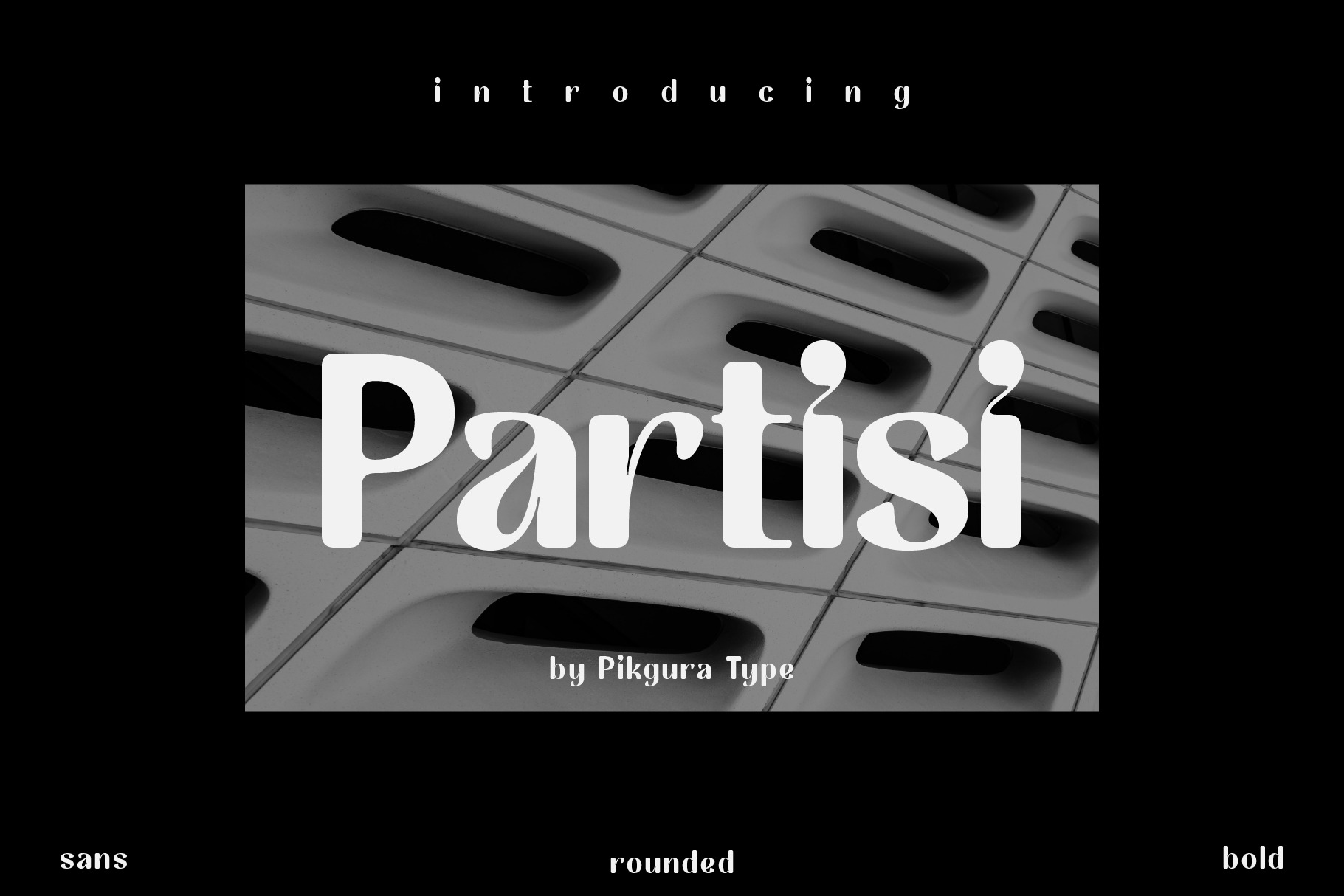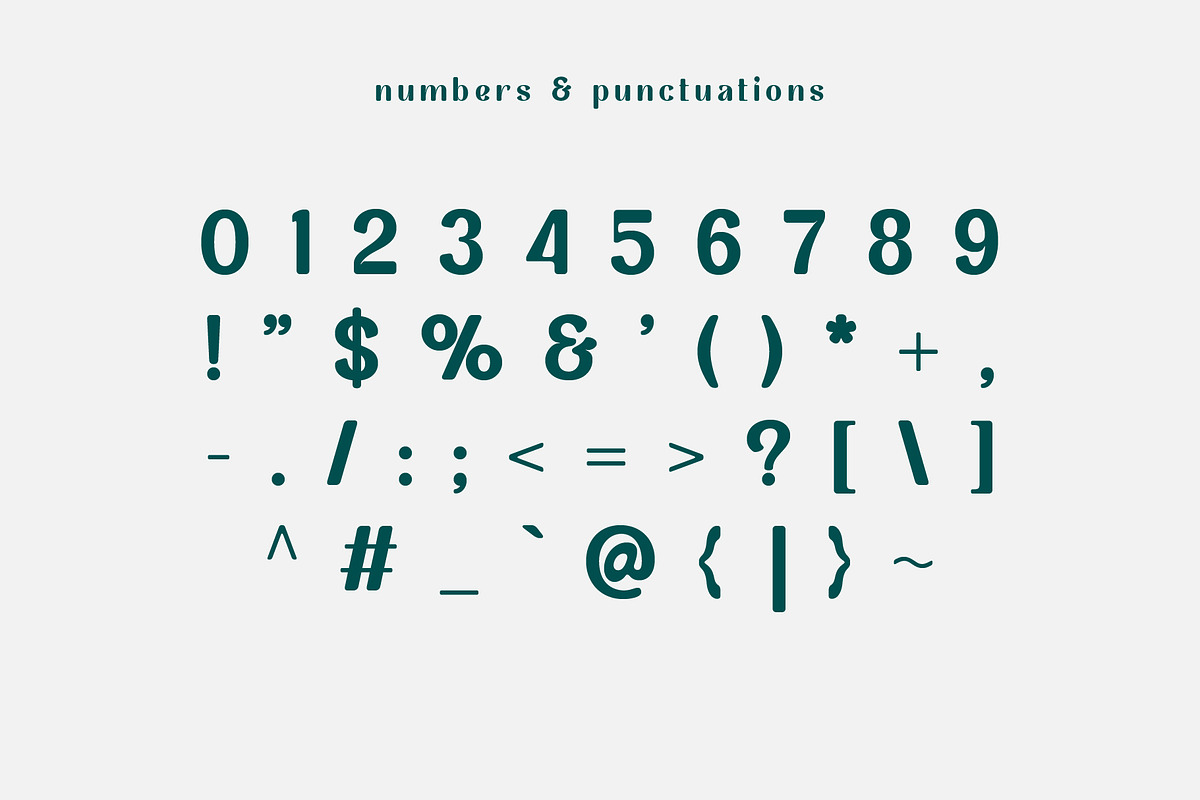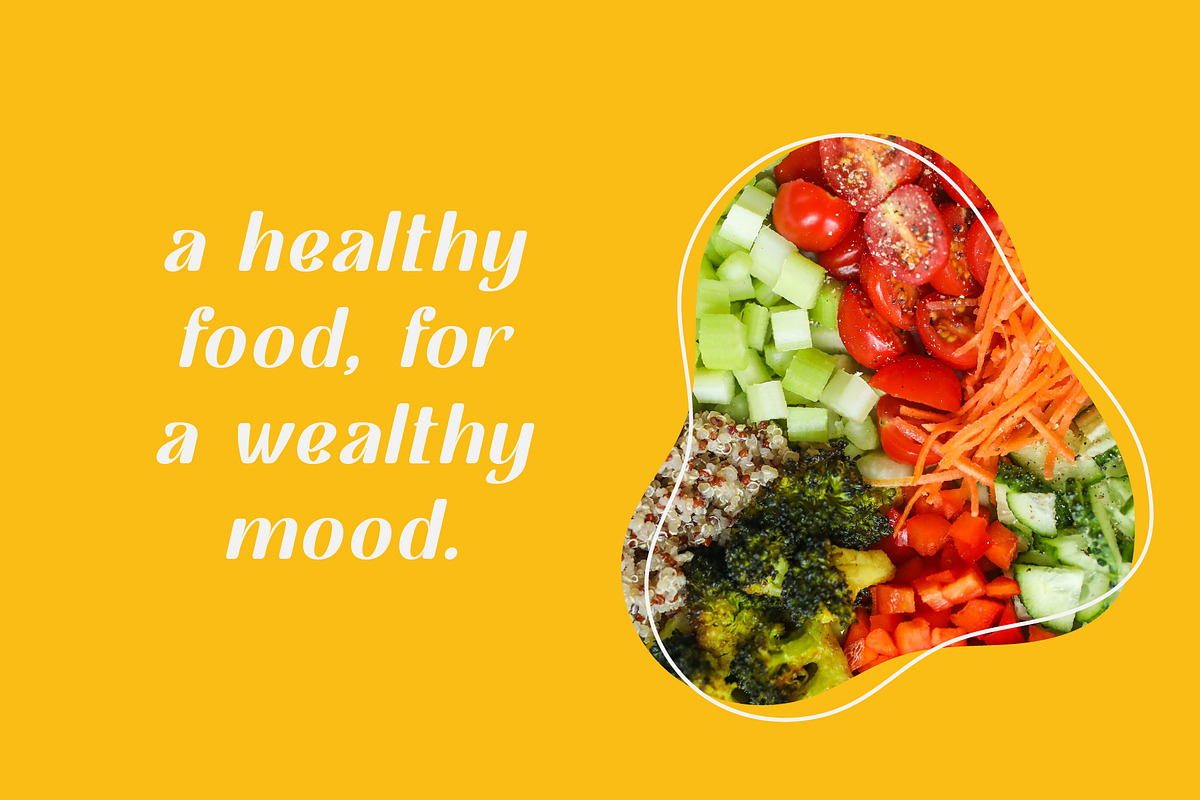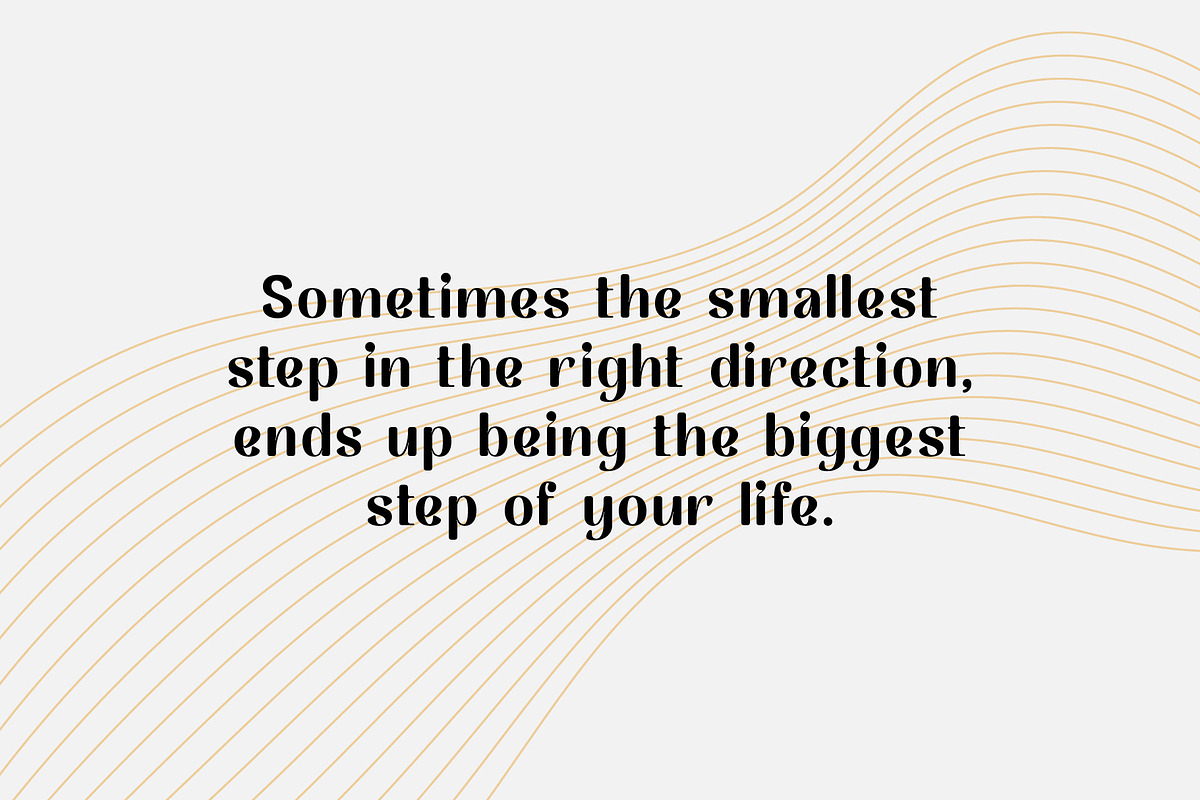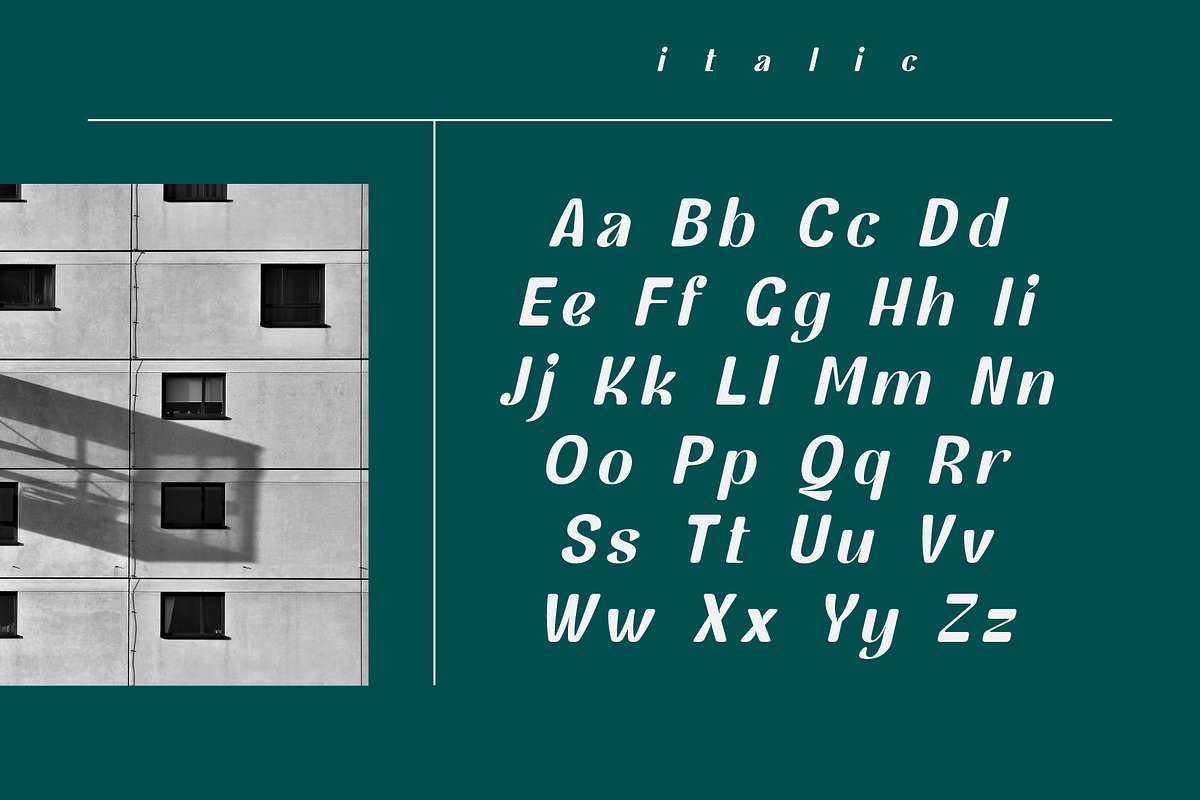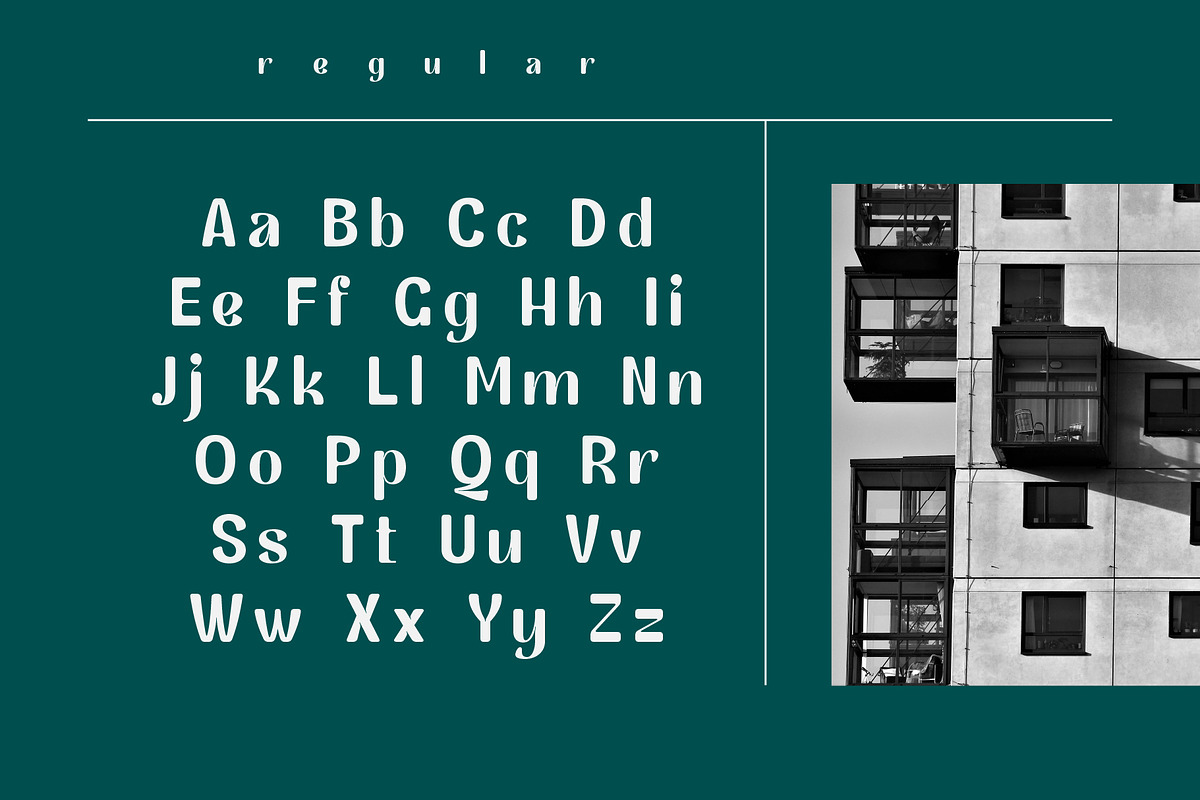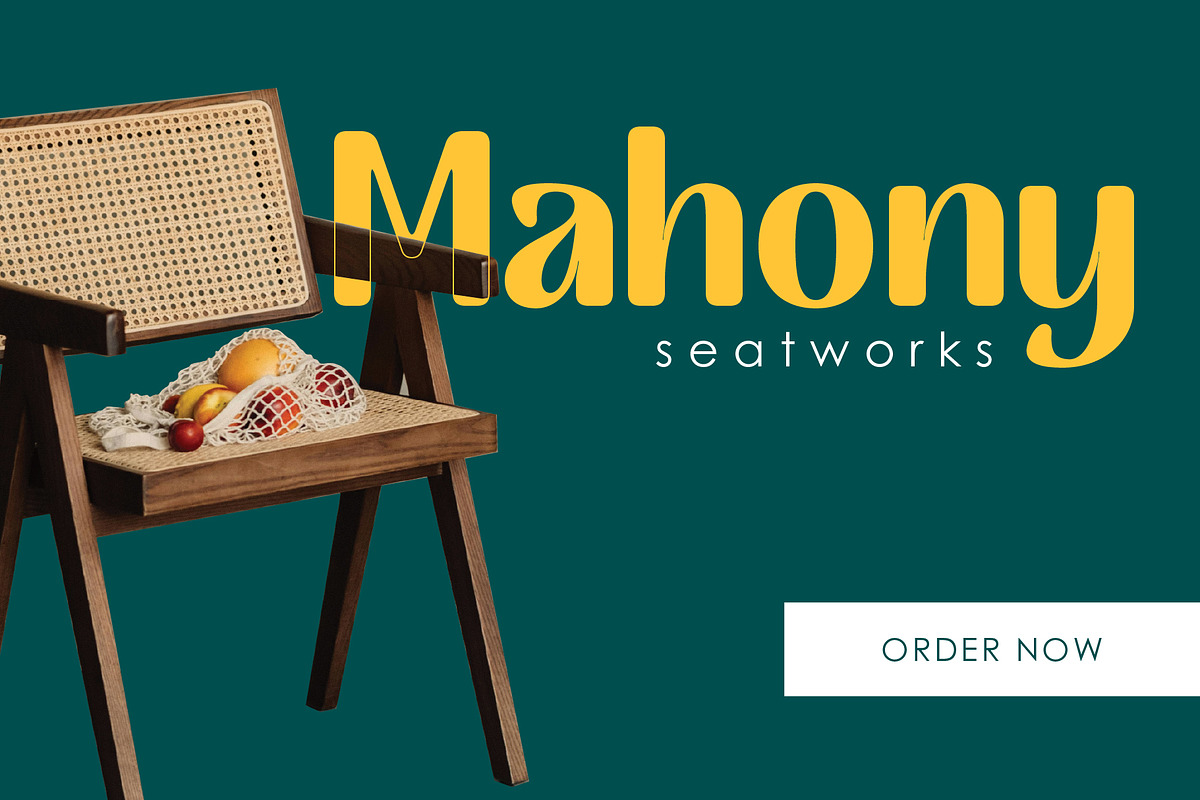
Partisi - Sans Serif Font
Partisi is a display typeface really nice font for those who want to make a statement without being too flashy. It’s clean, bold, and rounded. And this font includes with matching italic too. Such a fun typeface to play with!